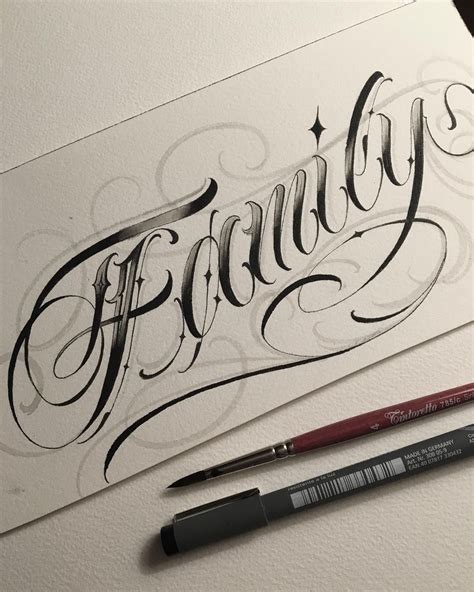
Script Fonts For Tattoos, With script fonts, you can add any rendition to the letters themselves, as long as it’s still considered legible. Chin up buttercup by nicky laatz.
Picking a font for your next tattoo is a very important decision. Typewriter font tattoos are some of the most inexpensive design choices that collectors can use in bringing body art to life. Canvas acrylic megafamily by yellow design studio.
92 free script bold fonts · 1001 fonts. Rumble brave is a vintage, tattoo font with serif, script, and dingbat typefaces along with alternates, swashes, and ligatures.great for beverage labels, logos, and anywhere you want a victorian feel to your design project. Font design and ideas make the perfect compliment to any tattoo. Picking a font for your next tattoo is a very important decision.
Rumble brave is a vintage, tattoo font with serif, script, and dingbat typefaces along with alternates, swashes, and ligatures.great for beverage labels, logos, and anywhere you want a victorian feel to your design project. It is a display font meant for vintage logos, fashion labels, custom cards headers, badges, food packaging designs, especially wine labels. Inkland is a beautiful, extremely.
Script vs display tattoo fonts. Every font is free to download! Acuentre is another elegant tattoo font that comes with a classic vintage design. Calligraphy is always superior when one is trying to convey their sophisticated origins. Words of wisdom, quotes, custom text, and more can be included with.
Rumble old school and parlour typeface are vintage and old style fonts that are perfect for any vintage branding requirements you may come across with their more classic aesthetic. Blackletter lettering design is common among tattoo fonts. It is a display font meant for vintage logos, fashion labels, custom cards headers, badges, food packaging designs, especially wine labels. When you.
This typeface was basically inspired by the tattoo lettering with swirl tattoos. All lowercase letters include ending swashes and alternative font. Since latin is a historically a romance language, when used with these style fonts and combined with unique textual flourishes, the tattoo art. Acuentre is another elegant tattoo font that comes with a classic vintage design. In recent years,.
With script fonts, you can add any rendition to the letters themselves, as long as it’s still considered legible. Delicate lines and smooth flows of a tattoo lettering would look awesome paired with contracting fonts and additional illustrations, doodles, icons and more. Looking for tattoo lettering fonts? Moritza script is a calligraphy script font that comes with a very beautiful.
Melon honey by morning time studio. Rumble brave is a vintage, tattoo font with serif, script, and dingbat typefaces along with alternates, swashes, and ligatures.great for beverage labels, logos, and anywhere you want a victorian feel to your design project. Actually a lot of good wine was consumed. With script fonts, you can add any rendition to the letters themselves,.
Calligraphy tattoos picture script tattoo fonts. This font has a pretty appeal for ever letter, and works well in print work. 570 free script fonts · 1001 fonts. Introducing of our new product the name bandito fonts. In recent years, the fonts used in tattoo designs are decisive, because they largely affect the final result.
Delicate lines and smooth flows of a tattoo lettering would look awesome paired with contracting fonts and additional illustrations, doodles, icons and more. Rumble old school and parlour typeface are vintage and old style fonts that are perfect for any vintage branding requirements you may come across with their more classic aesthetic. I wanted to create a font, that is.